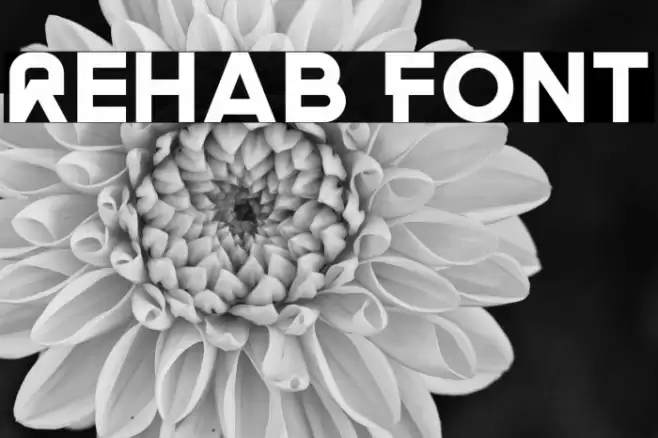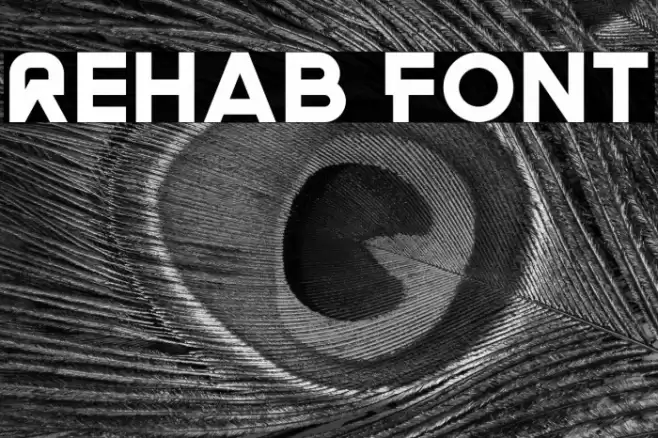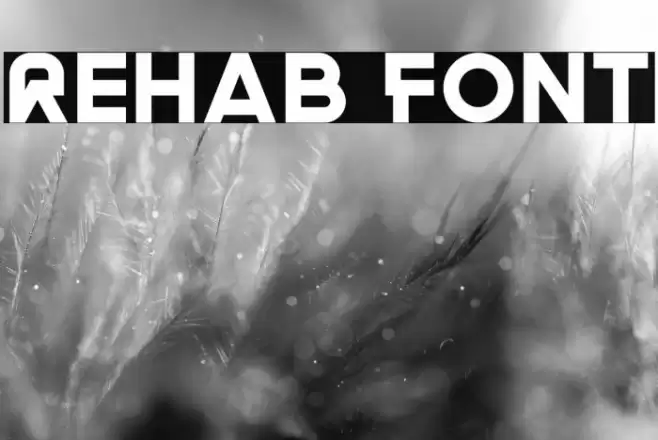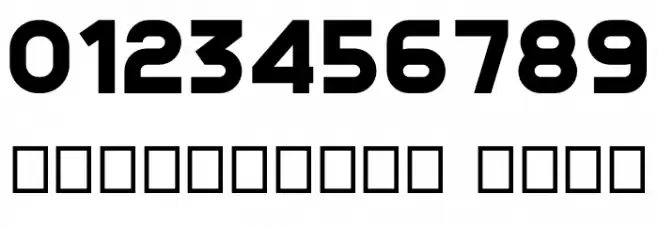
Rehab Font
Rehab Description
This font features a bold and geometric design, characterized by its strong, angular lines and unique cutouts within the letterforms. The uppercase letters exhibit a modern and futuristic style, with certain characters like 'A', 'B', and 'R' having distinct notches and slashes that add a dynamic and edgy feel. The numerals follow a similar design ethos, maintaining consistency with the bold and angular theme. The font's overall appearance is striking and impactful, making it suitable for attention-grabbing headlines or branding that requires a contemporary and assertive look.
A bold, geometric font with angular lines and unique cutouts, perfect for modern designs from Regular fonts.
- Proposed Projects: Ideal for branding, posters, and headlines that require a modern and bold aesthetic.